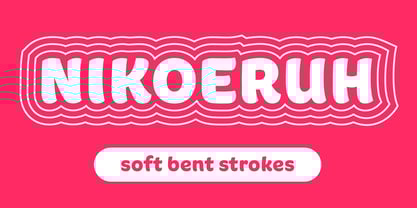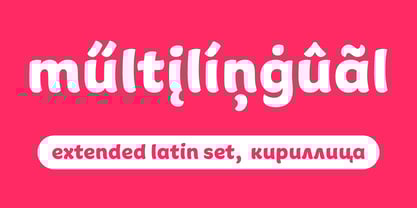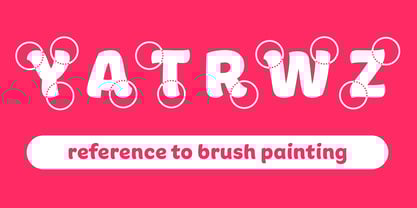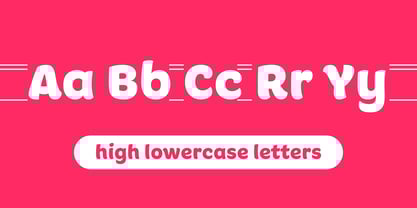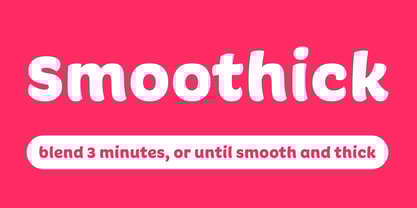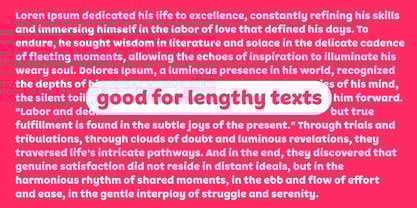
Smoothick
The Smoothick Font Family was designed by Andrey Kudryavtsev and published by AKTF. Smoothick contains 1 styles. More about this family
Smoothick is a charming and expressive display typeface. Featuring bold, rounded strokes and whimsical shapes, this typeface evokes a sense of playfulness and approachability. Soft, rounded terminals. Playful and friendly letterforms with unique detailing. Ideal for headlines, children’s books, crafts, posters, and creative branding. Works best at medium to large sizes due to its expressive design. Supports extended Latin character set and Cyrillic. Best For applications where a touch of whimsy or warmth is needed — from greeting cards and toy packaging to bakery logos and social media graphics.
Andrey Kudryavtsev Type Foundry from Irkutsk, Russia specializes in Cyrillic decorative fonts. Type foundry has been working since 2008, and in that time more than fifty original fonts and type families have been released. The objects of attention are often bright, funny, mischievous fonts for the design of children's goods, food packaging and identity. Andrey Kudryavtsev participated in the Rodrigo Araya's RodrigoTypo project in Chile as a consultant and designer of the cyrillic parts of several font families and was shortlisted twice for the Tipos Latinos Biennial. He participated as a co-author of the Qwincey FY typefamily in the French project Fontyou. His header type Czarevitch was awarded the Glyphs prize at the Modern Cyrillic 2019 international competition. He participated as co-author designer in a project of universal typefamily Onest for Moldova.